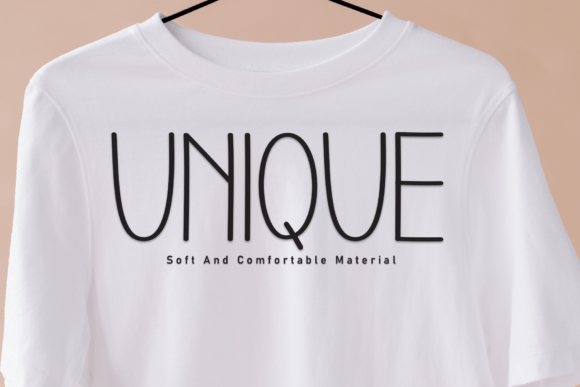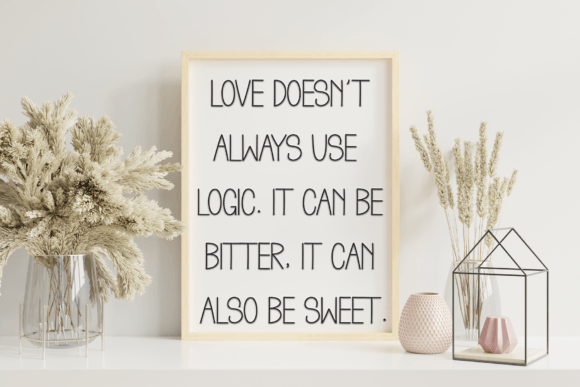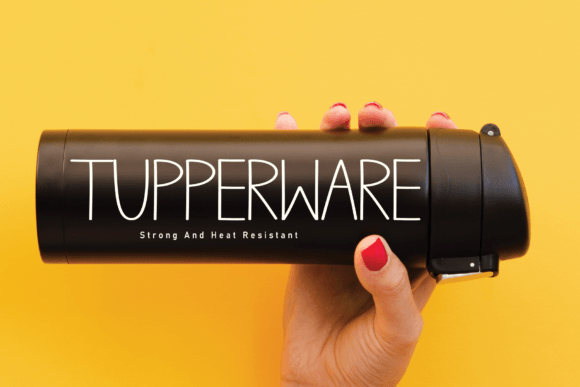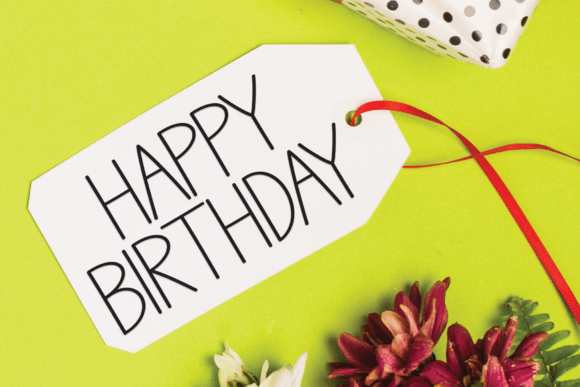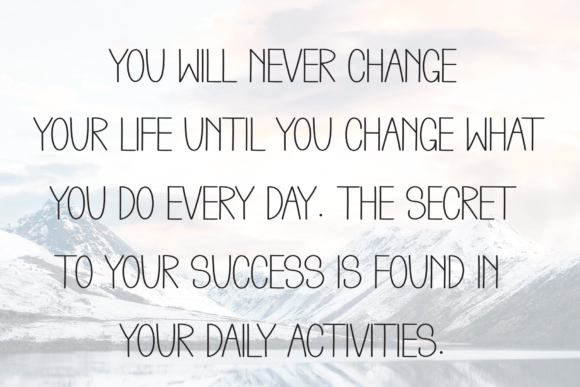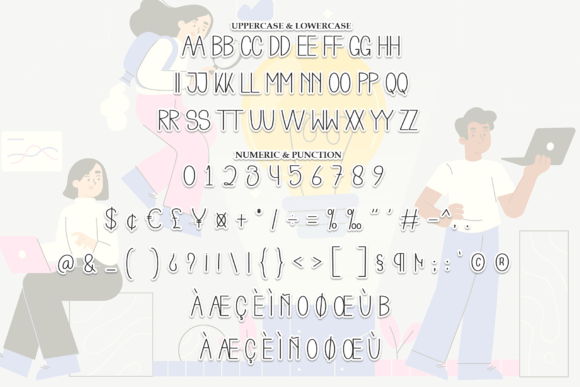
Introducing the Ultimate Friendly Font for Your DIY Projects
Are you tired of using the same old fonts for your daily planner, journal, or DIY projects? Look no further! We’re excited to introduce a brand new font that’s designed to add a friendly and lovely touch to all your creative endeavors. This font is perfect for designers, crafters, and anyone who loves to get creative and make things.
A Font that’s Perfect for Everyday Use
This font is designed to be used every day, making it ideal for your diary planner and journal. Its friendly and approachable style will make your daily entries feel more personal and enjoyable. Whether you’re jotting down notes, to-do lists, or inspiration, this font will bring a smile to your face.
Bring Your Projects to Life
But this font isn’t just limited to personal use. It’s also perfect for a wide range of projects, including:
- Back to school projects: Add a playful touch to your child’s homework, notes, or school projects.
- Weddings: Use this font to create beautiful wedding invitations, decorations, or social media posts.
- Party decoration: Make your party planning a breeze with this font’s fun and festive style.
- Invitations: Create eye-catching invitations for birthdays, baby showers, or other special occasions.
- Festivals: Celebrate your favorite festivals with this font’s vibrant and lively style.
- Posters: Create stunning posters for your business, event, or social cause.
- Blogs: Add a personal touch to your blog posts and make them more engaging.
- Clothing: Use this font to create custom t-shirts, hoodies, or other clothing items.
- Child-related designs: Create adorable designs for kids, including stickers, coloring pages, or activity sheets.
- Greeting cards: Make your greeting cards more special with this font’s friendly and lovely style.
- Social media posts: Stand out on social media with this font’s unique and eye-catching style.
Why You’ll Love This Font
So why should you choose this font for your DIY projects? Here are just a few reasons:
- Unique style: This font has a one-of-a-kind style that’s sure to make your projects stand out.
- Easy to read: The font is clear and easy to read, making it perfect for everyday use.
- Versatile: This font can be used for a wide range of projects, from personal to professional.
- Fun and playful: The font’s friendly and lovely style will add a touch of fun and playfulness to your projects.
With this font, you’ll be able to:
- Create unique and eye-catching projects that reflect your personality.
- Add a personal touch to your daily planner, journal, or DIY projects.
- Stand out on social media with this font’s unique and eye-catching style.
In conclusion, this friendly font is a must-have for designers, crafters, and anyone who loves to get creative. Its unique style, ease of use, and versatility make it perfect for a wide range of projects. So why wait? Add it to your font library today and start creating stunning projects that will bring a smile to your face and yours of others.